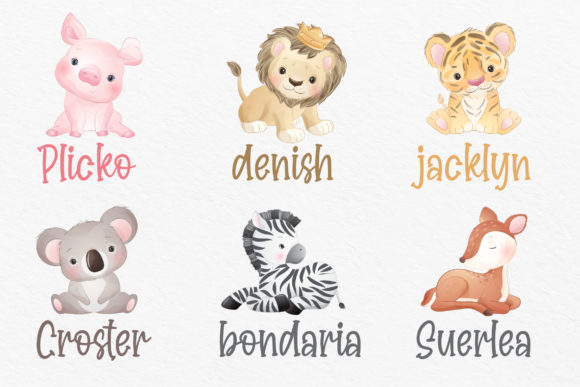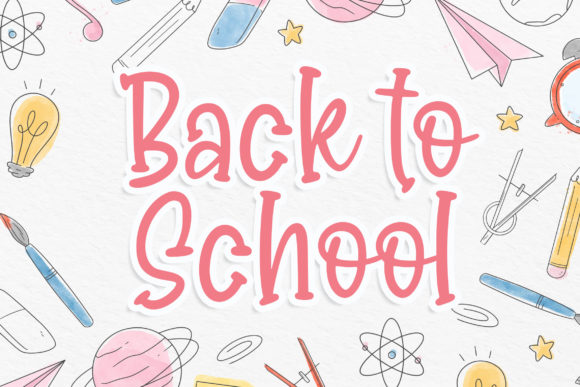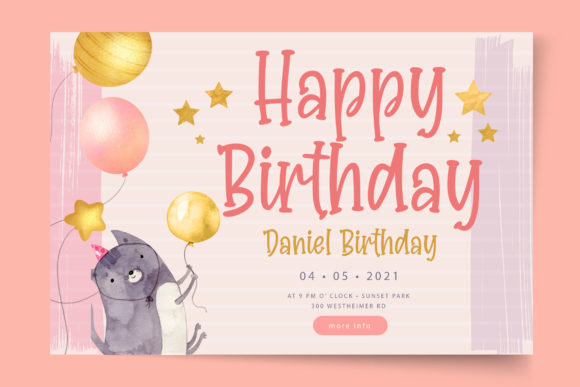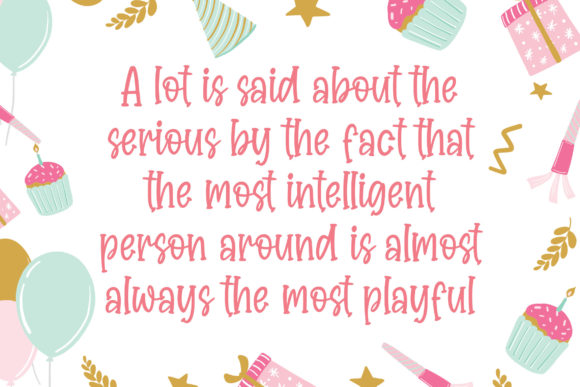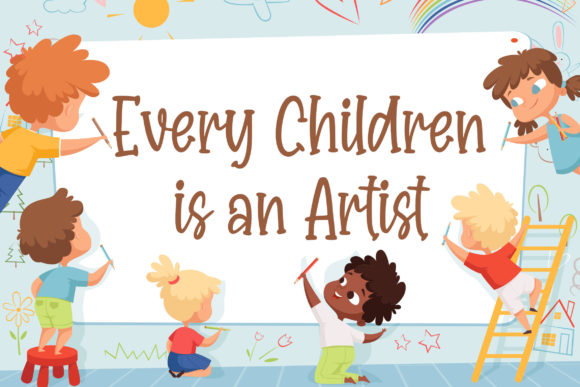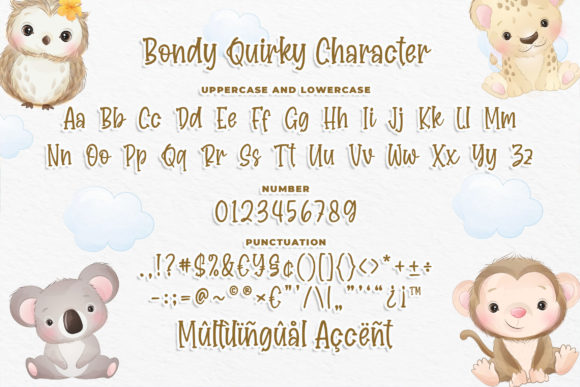
Bondy Quirky Font: Add a Touch of Whimsy to Your Designs
Are you tired of using the same old fonts in your designs? Do you want to add a touch of personality and whimsy to your projects? Look no further than the Bondy Quirky Font! This jolly and charming display font is perfect for designers and crafters who want to make their designs stand out from the crowd.
What is Bondy Quirky Font?
Bondy Quirky is a display font that is as playful as it is charming. With its whimsical and quirky design, this font is sure to brighten up each of your designs. Whether you’re working on a logo, a poster, or a social media graphic, Bondy Quirky is the perfect choice. Its unique and eye-catching design will add a touch of personality to your projects and make them more engaging.
Characteristics of Bondy Quirky Font
So, what makes Bondy Quirky Font so special? Here are just a few of its key characteristics:
- Whimsical design: Bondy Quirky has a playful and whimsical design that is sure to add a touch of fun to your designs.
- Charming and jolly: This font has a charming and jolly feel that will make your designs more approachable and engaging.
- Display font: Bondy Quirky is a display font, making it perfect for headlines, titles, and other prominent text elements.
- Unique and eye-catching: This font has a unique and eye-catching design that will make your designs stand out from the crowd.
How to Use Bondy Quirky Font
So, how can you use Bondy Quirky Font in your designs? Here are a few ideas:
- Logos and branding: Use Bondy Quirky as a logo font to add a touch of personality to your brand.
- Posters and flyers: Add Bondy Quirky to your posters and flyers to make them more eye-catching and engaging.
- Social media graphics: Use Bondy Quirky in your social media graphics to make them more fun and engaging.
- Invitations and cards: Add Bondy Quirky to your invitations and cards to make them more special and unique.
Why Choose Bondy Quirky Font?
So, why should you choose Bondy Quirky Font for your designs? Here are just a few reasons:
- Easy to read: Despite its playful design, Bondy Quirky is easy to read and understand.
- Versatile: This font is versatile and can be used in a variety of design projects.
- Unique: Bondy Quirky has a unique design that will make your designs stand out from the crowd.
- Fun and engaging: This font is fun and engaging, making it perfect for designs that need to capture the reader’s attention.
In conclusion, Bondy Quirky Font is a jolly and charming display font that is perfect for designers and crafters who want to add a touch of whimsy to their designs. With its playful and quirky design, this font is sure to brighten up each of your designs and make them more engaging. Whether you’re working on a logo, a poster, or a social media graphic, Bondy Quirky is the perfect choice. So why not give it a try and see the difference it can make in your designs?